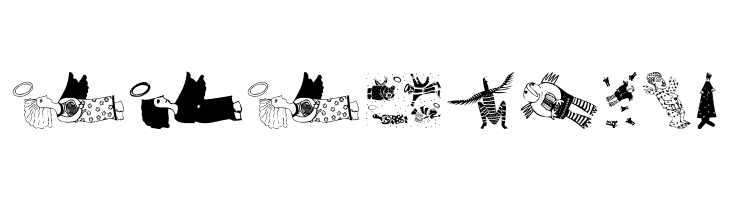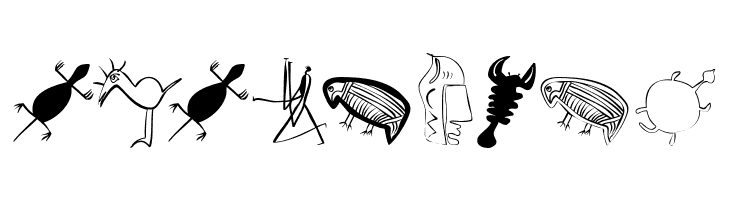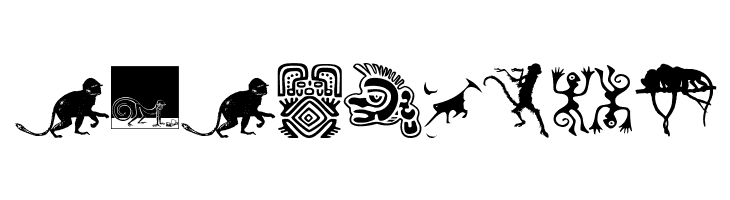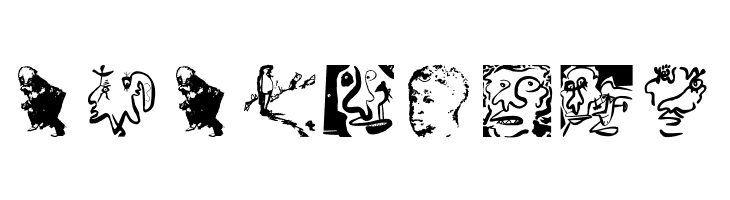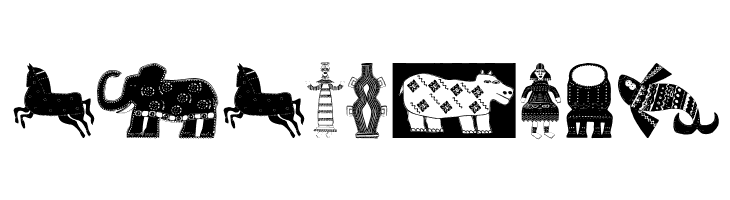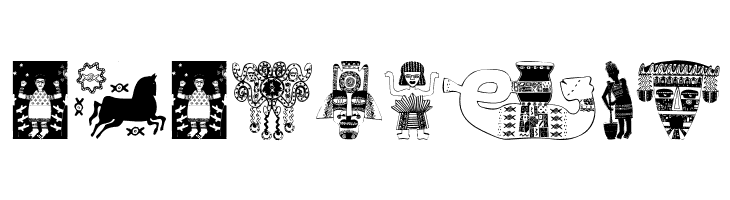
• AEZ executive hearts
• AEZ fishie fishie
A decorative font with playful fish illustrations replacing characters.
• AEZ goldfish
A whimsical font with characters inside fish silhouettes, perfect for playful designs.
• AEZ halloween dingbats
• AEZ I saw the Sign
A playful, decorative font with figures holding each letter.
• AEZ mmm caffeine
A playful font with characters inside coffee cup silhouettes, perfect for coffee-themed designs.
• AEZ monster
A playful, monster-themed decorative font with bold, quirky characters.
• AEZ my pet fish
A playful font featuring a variety of fish illustrations as characters.
• AEZ outline vertical
A whimsical, outlined decorative font with playful serifs and curves.
• AEZ owlness
A bold sans-serif font with whimsical owl illustrations accompanying each letter.
• AEZ scrapbooking dings
A playful set of dingbat symbols themed around scrapbooking and crafting tools.
• AEZ scripty
An expressive, script-like font with a dynamic, hand-drawn appearance.
• AEZ scripty 2
An elegant and artistic script font with flowing, intricate letterforms and decorative flourishes.
• AEZ seascape
A decorative font with a lighthouse motif integrated into each letter, ideal for nautical themes.
• AEZ snowman
A playful font with characters inside snowman faces, ideal for festive designs.
• AEZ sunflower letters
A decorative font with bold letters integrated with sunflower illustrations.
• AEZ swim away
A whimsical font with characters inside fish shapes, perfect for playful designs.
• AEZ Vanity
A playful, decorative font with pattern-filled, textured letterforms.
• AEZ Where's Harry?
A series of whimsical stick figure illustrations conveying playful actions.
• AEZcricles
A bold, artistic font with brush-like strokes and playful circular elements.
Decorative dingbat font with African art and cultural motifs.
• AfricainBatsOSix